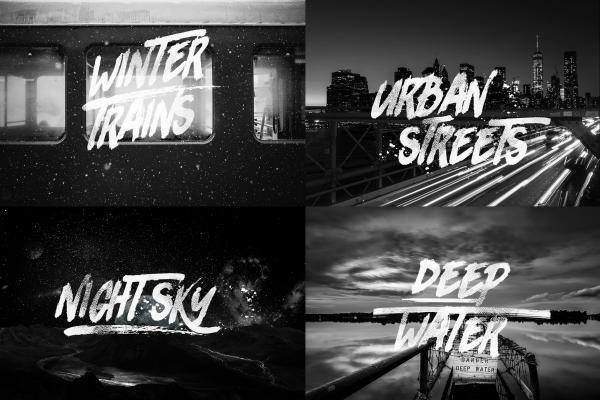
RHINOS ROCKSÂ is brush font including all US glyphs and it comes in regular and slant version. Ideal for loud messages.
Made with round marker adding realistic moves in it. Very interesting to use for logos, name tags, handwritten quotes, product packaging, merchandise, social media & greeting cards .Also, ideal to make t-shirts design and other clothing products.